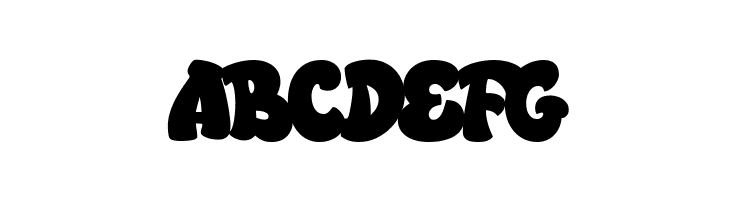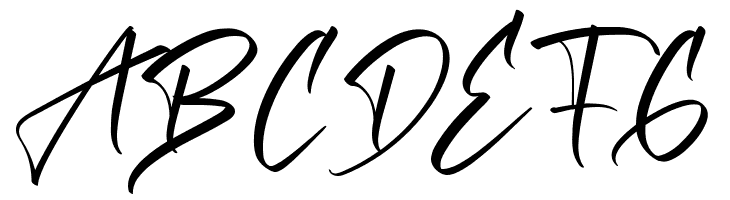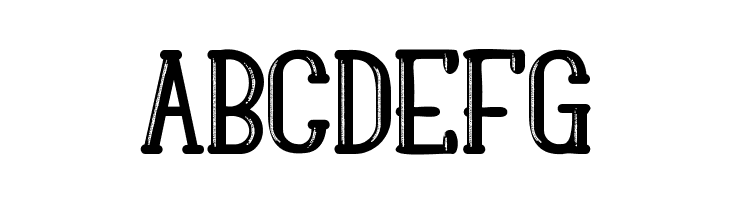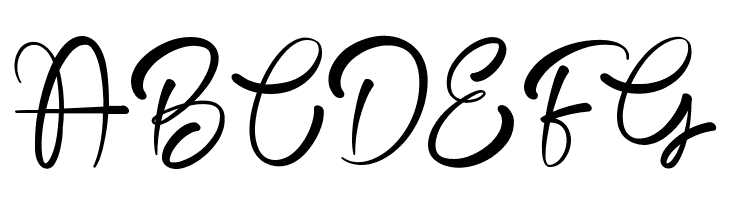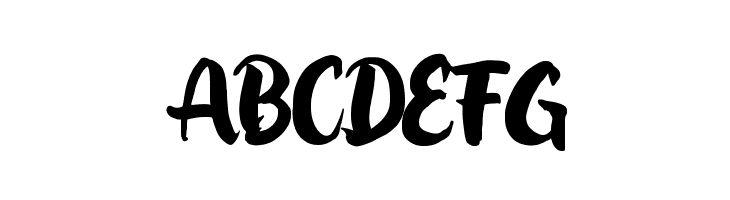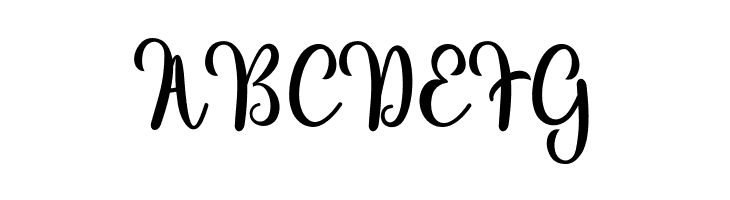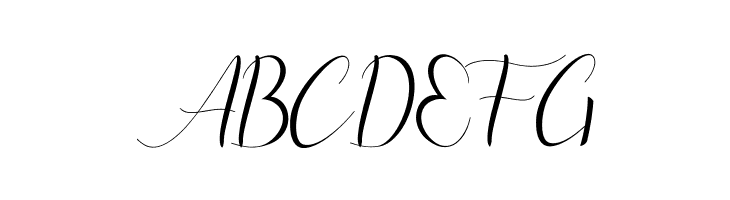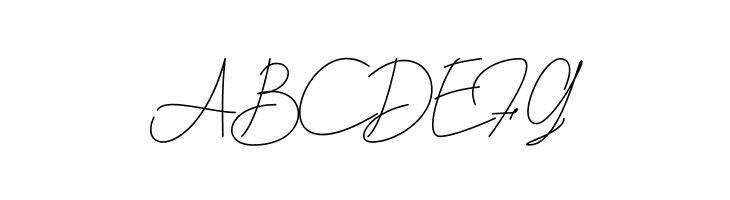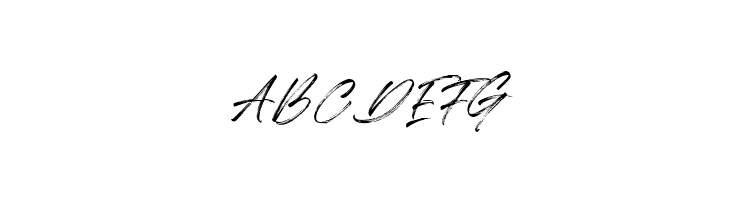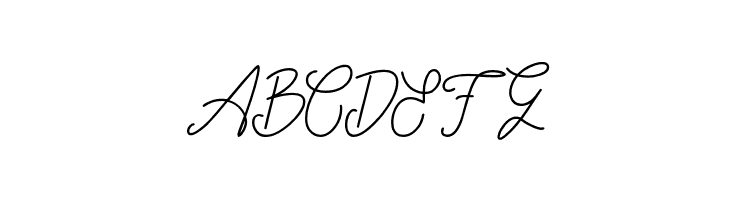
An elegant, cursive font with flowing lines and graceful curves.
A bold, rounded font with a playful and professional style.
A bold, italic font with smooth curves and a slightly slanted style.
A smooth, flowing italic font with elegant curves and dynamic slant.
A playful, rounded font with a friendly and approachable style.
A bold, playful font with a graffiti-like, bubbly appearance.
A dynamic and flowing script font with elegant, cursive letterforms.
A bold, decorative font with a vintage style and intricate patterns.
A flowing, elegant script font with a modern calligraphic style.
A bold, playful font with rounded edges and whimsical details.
A bold, hand-drawn font with rough, textured edges and a dynamic style.
A bold, expressive script font with a hand-painted look.
A bold, expressive script font with a hand-drawn, artistic style.
A playful, hand-drawn font with whimsical characters and decorative flair.
A playful and elegant handwritten script font with flowing curves.
A graceful script font with flowing, cursive strokes and elegant curves.
A sophisticated script font with elegant, flowing cursive strokes.
A bold, geometric sans-serif font with a modern and versatile design.
A bold, decorative font with a modern-vintage flair and high contrast strokes.
A dynamic, cursive font with fluid, expressive strokes.
A graceful script font with fluid, connected strokes and elegant curves.
A bold, graffiti-inspired font with sharp, angular lines and dynamic strokes.
A dynamic and elegant script font with fluid, handwritten letterforms.
A bold, playful handwritten font with a casual and friendly style.
A high-contrast, elegant serif font with bold uppercase and smooth lowercase letters.
A flowing, elegant cursive font with dynamic loops and smooth connections.
A lively and elegant script font with fluid, cursive strokes.
A flowing, cursive font with elegant, sweeping strokes and a handwritten appearance.
A flowing, cursive script font with elegant, sweeping strokes.
A bold, expressive script font with interconnected characters and elegant flourishes.
A modern, geometric sans-serif font with clean lines and uniform structure.
A bold, playful handwritten font with flowing, cursive strokes.
A lively and expressive script font with fluid, connected letterforms.